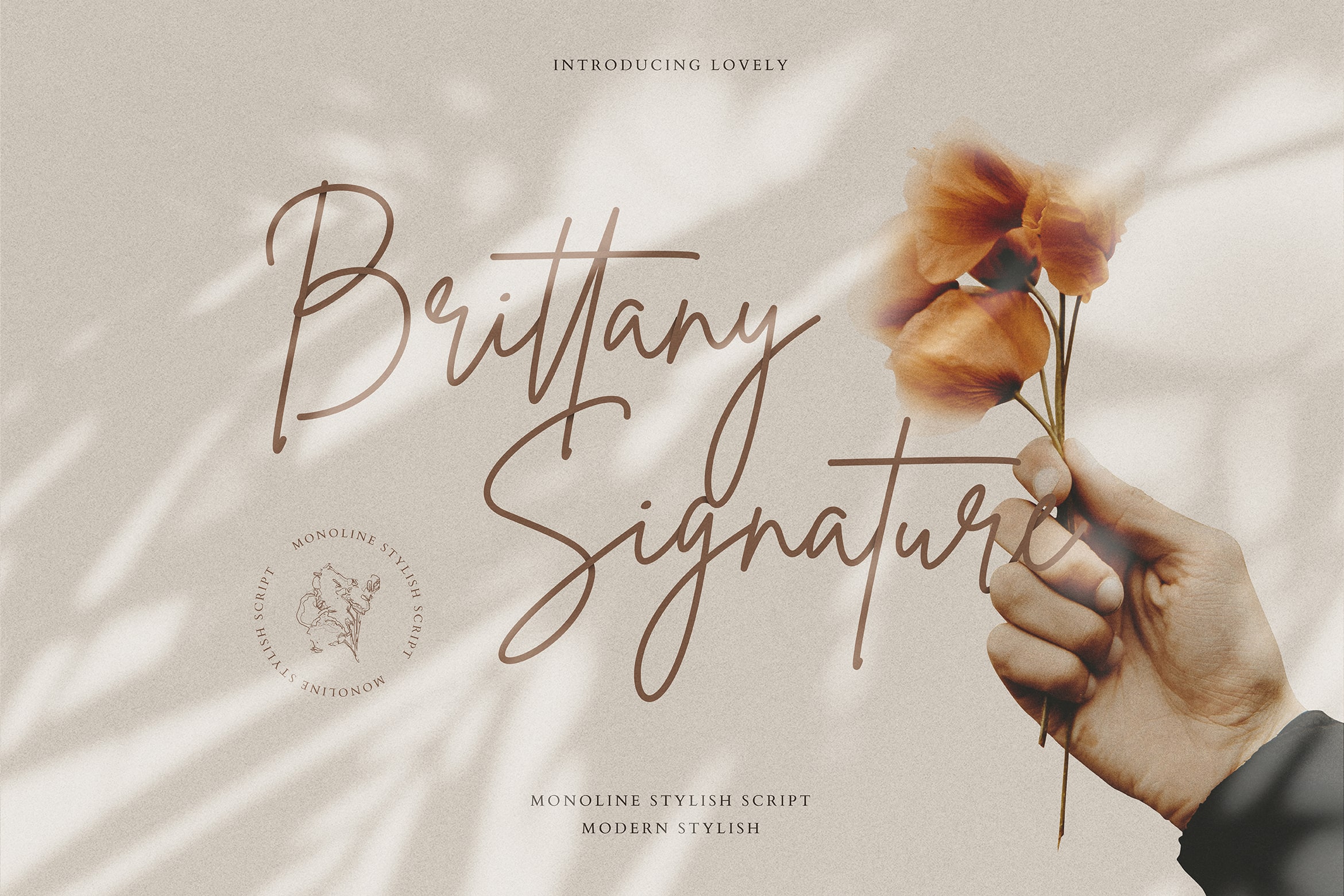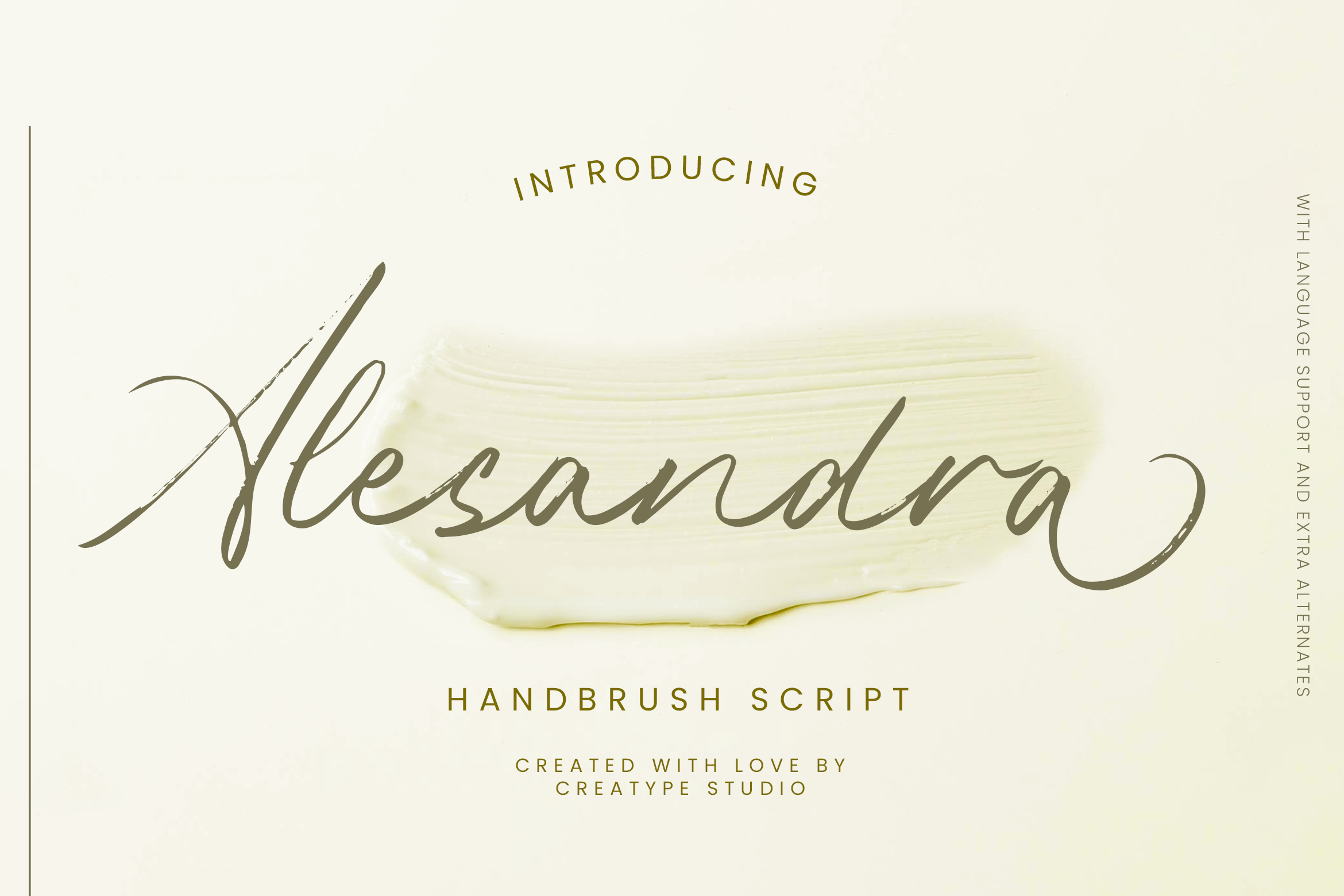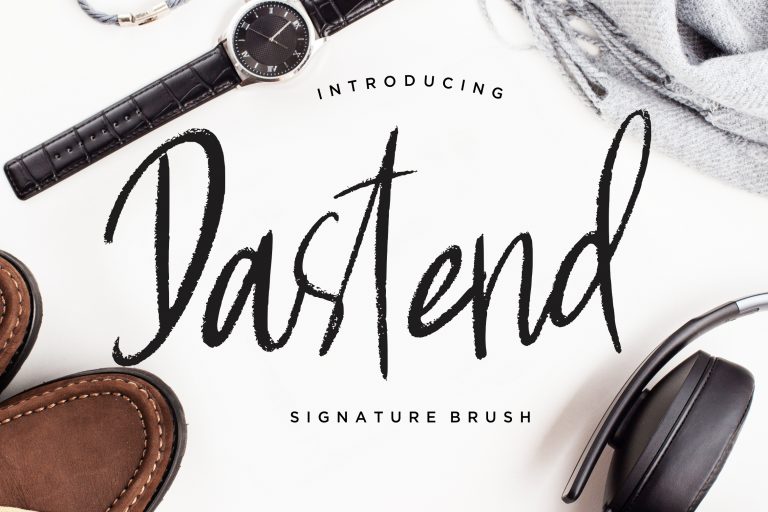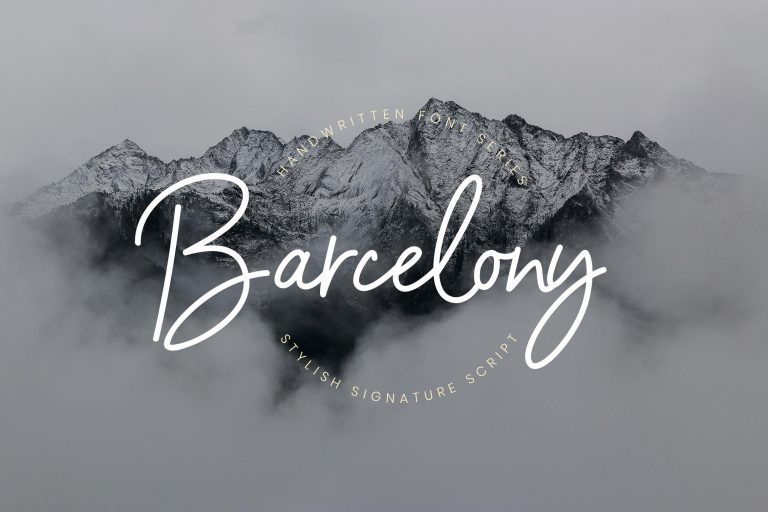
30 Luxury Thick Script Font Picks for High-End Design Projects
Luxury Thick Script Fonts
Among font styles, luxury thick script font designs combine bold strokes with cursive flourishes, creating a dramatic yet readable impression. In this article, you’ll explore 30 handpicked elegant script fonts from CreatypeStudio that excel in branding, wedding invites, packaging, and refined digital design.
Key Takeaway:
• Luxury thick script font is ideal for premium branding.
• Use these fonts sparingly and pair them with simple typefaces.
• CreatypeStudio offers 30 refined, bold script options that suit high-end branding, invitations, packaging, and digital projects.
30 Luxury Thick Script Font Collection from CreatypeStudio
According to Designity, fonts that feel personal are rising in popularity among luxury and boutique brands because they convey authenticity and craftsmanship. Building on this insight, below is a curated list of 30 luxury fonts from CreatypeStudio.
1. Brittany Signature
Fashionable signature-style script with elegant curves and smooth flow for branding, invitations, packaging, and sophisticated creative projects.
2. Gistesy Signature
Elegant signature font with natural flowing movement, adding classy charm to logos, invitations, packaging, and upscale branding projects.
3. Barcelony Signature
Smooth monoline signature script with elegant casual style, suitable for logos, branding, invitations, packaging, and modern creative projects.
4. White Angelica Signature
Elegant handwritten signature font with natural, organic flow that is best used for logos, invitations, branding, packaging, and sophisticated design projects.
5. Halimun Script Style
Fresh, modern, handwritten script with elegant strokes, bringing natural charm to logos, invitations, packaging, and stylish branding projects.
6. Shuttle Brand
Casual handwritten font with natural brushy strokes, versatile for logos, movie titles, invitations, branding, and stylish creative projects.
7. Sachssy Classy Handwritten
Classy handwritten font with modern brush elegance, the best pick for logos, invitations, packaging, social media, and stylish branding projects.
8. Wakanda Script
Characterized by confident, bold downstrokes and stylish loops, this elegant script font is crafted for upscale fashion branding, cosmetic packaging, and luxury promotional materials.
9. Jelytta Handwritten Script
Elegant script inspired by feminine beauty, featuring soft curves that enhance logos, invitations, packaging, and sophisticated branding projects.
10. Stockhoolm Medieval Serif
Medieval-inspired serif with bold ornamental details, suited for heritage branding, luxury packaging, and dramatic editorial headline projects.
11. Bottanical Brush Script
Attractive brush-style typeface with natural flow, versatile for branding, packaging, invitations, and social media design projects.
12. Alesandra Handbrush Script
A bold serif with versatile thick strokes and refined details, suitable for luxury branding, packaging, and editorial projects.
13. Handbrake Stylish Handlettering
Bold brush typeface with vintage flair, bringing personality and energy to branding, packaging, logos, and creative design projects.
14. Khingston Brush Script
Modern brush font with friendly details and dynamic strokes for branding, packaging, invitations, and stylish digital projects.
15. Retylle Solyta Monoline
A smooth monoline luxurious script font with consistent thick strokes for refined logos, elegant invitations, and premium packaging design.
16. Nawacitha Display Curly
Bold retro-inspired typeface with playful 80’s charm, bringing nostalgic character to logos, branding, packaging, and creative design projects.
17. Peachy Handwritten Script
Rounded handwritten strokes with balanced thickness, offering soft elegance for wedding invitations, feminine product branding, and premium packaging design.
18. Broocklyn Brush Script
Bold brush strokes with an urban luxury energy, bringing a strong and dynamic presence for logos, apparel branding, and social media visuals.
19. Dastend Signature Brush
Casual yet sophisticated bold strokes, balancing handcrafted authenticity with elegance for upscale branding and packaging.